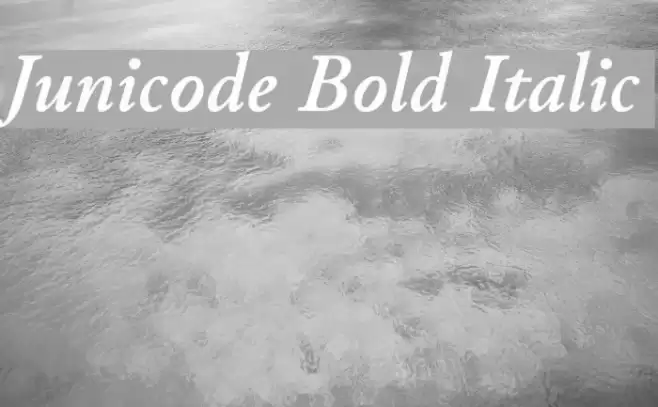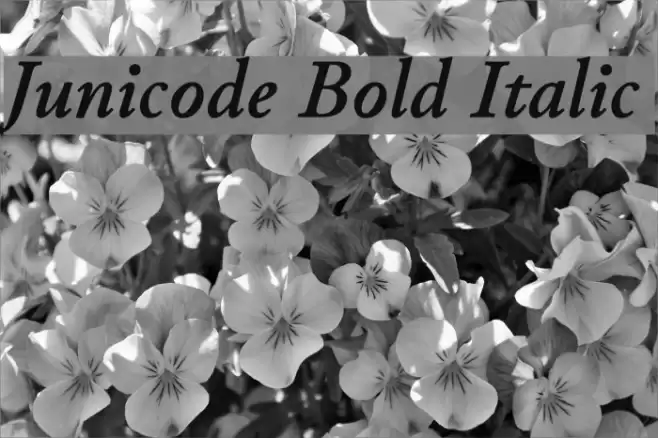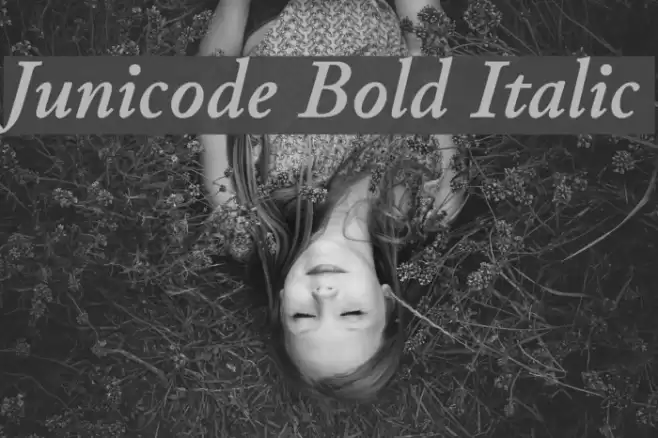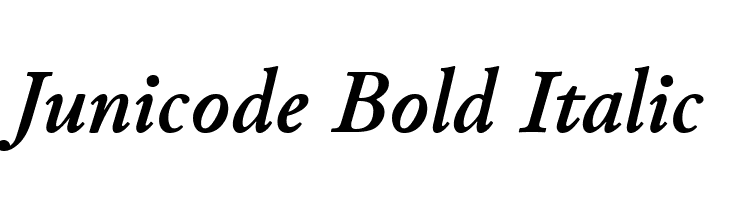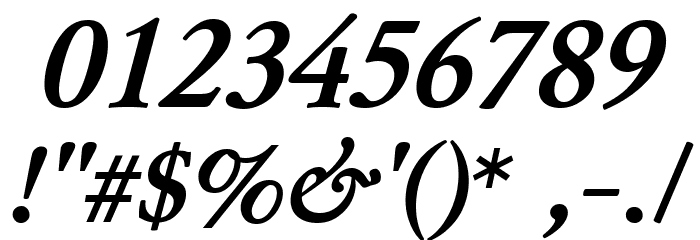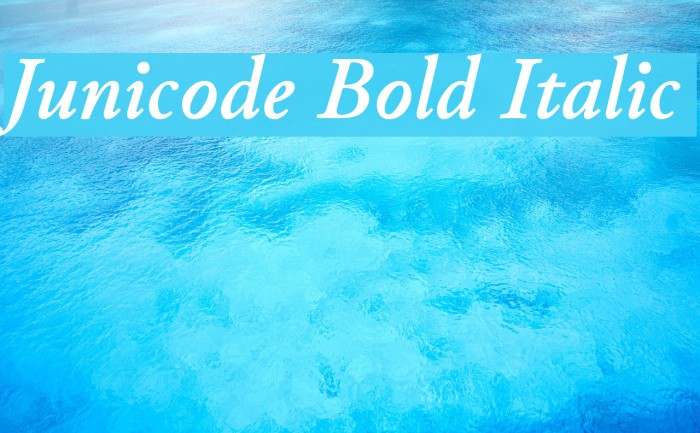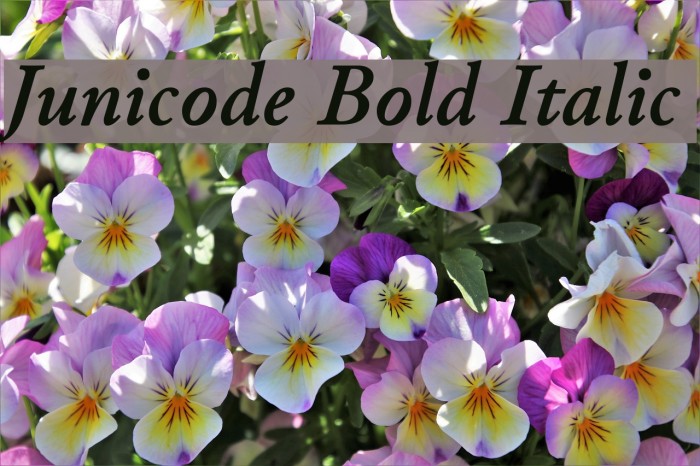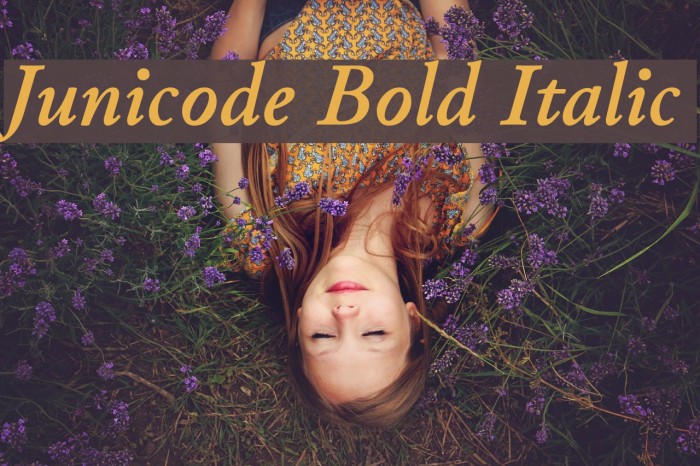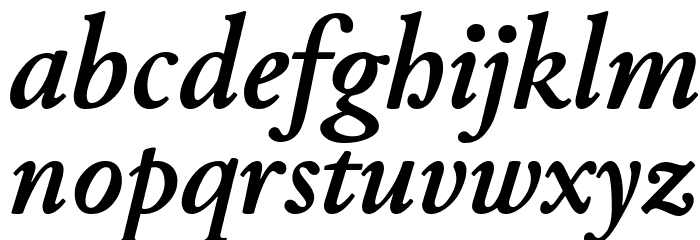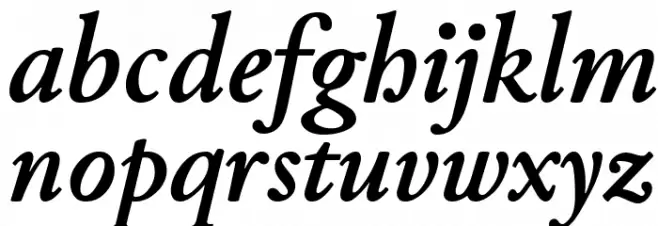
Junicode Bold Italic Font
Junicode Bold Italic Description
This typeface features a bold and italic style, characterized by its elegant and flowing serifs. The letters have a classic and scholarly appearance, with a slight slant that adds a dynamic and sophisticated feel. The strokes are moderately thick, providing a strong presence while maintaining readability. The numerals and special characters are designed to complement the alphabet, ensuring consistency throughout. This font is ideal for projects that require a touch of tradition and formality, such as academic papers, historical documents, or formal invitations.
A bold, italic serif font with a classic and scholarly appearance from Uncategorized fonts.
- Proposed Projects: Ideal for academic papers, historical documents, formal invitations, and classic book titles.
- Overall Style: Classic